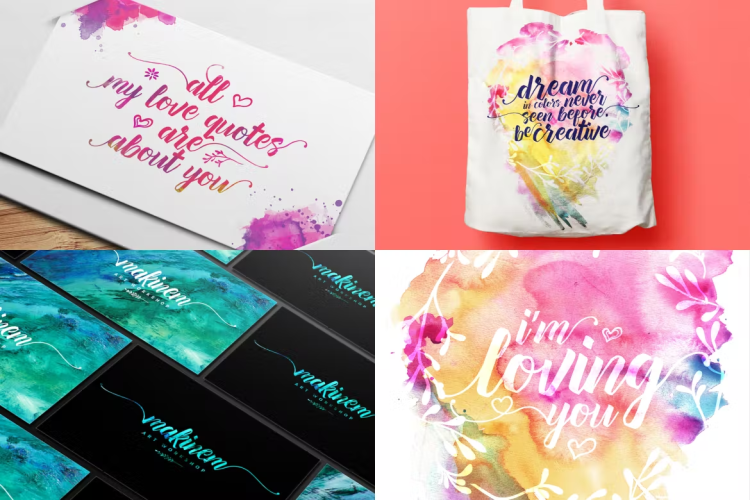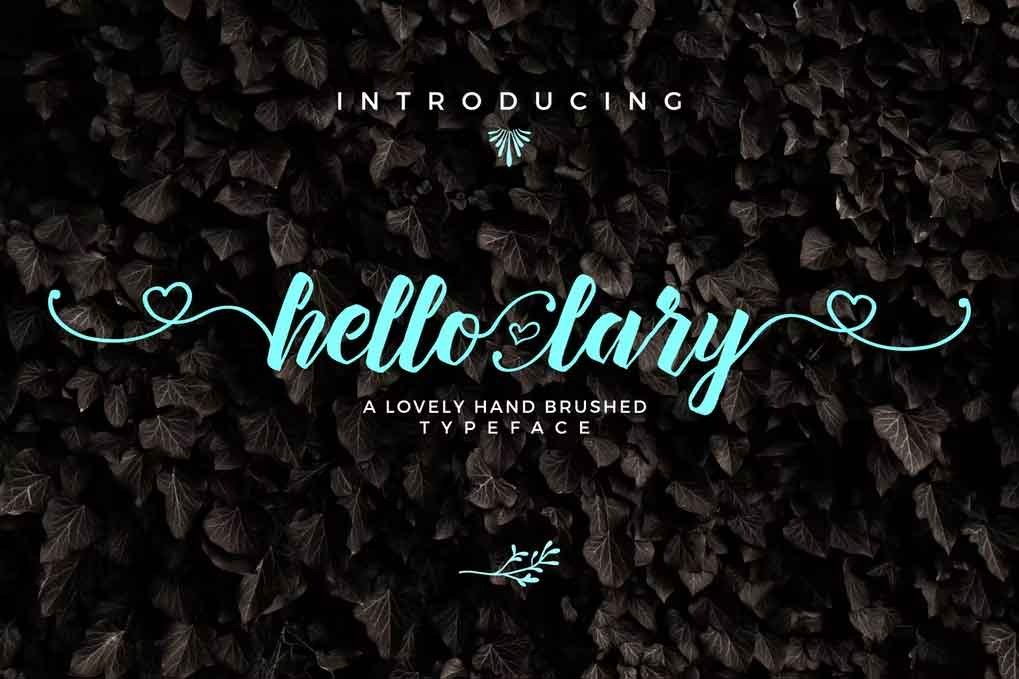
Hello Lary Font
Introducing Hello Lary! A lovely handmade typeface.
Suitable for any design needs, modern invitation design, branding, blog design, modern advertising design, invitation, Art Quote, Home decor, Book/Cover Title, Invitation, special events, birthday, custom mug, pillow, t-shirts, any brush lettering needs and more.
Where Hello Lary Font works best
Headlines and titles
Hello Lary Font has enough character to carry a headline on its own; set it large and keep the supporting text plain.
Brand and product names
Short strings are where this typeface is strongest — a name, a label, a cover line.
Social and video graphics
Set Hello Lary Font over a flat colour or a quiet photograph so the letterforms stay the focus.
What kind of work does Hello Lary Font suit?
It sits in the Handwriting Fonts group and reads as branding, brush, handwriting fonts, handwritten. That makes it a candidate wherever those qualities help: headings, packaging, social graphics and brand work. Set it at the size you plan to use before deciding.